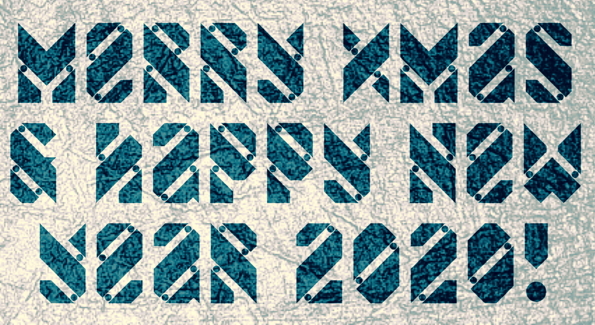
Try the alternatives for B, D and E in the lower case, please.
@meek: Another modular system.
the first thing i thought when i seen this font was Marble Races.
i imagened it like this: